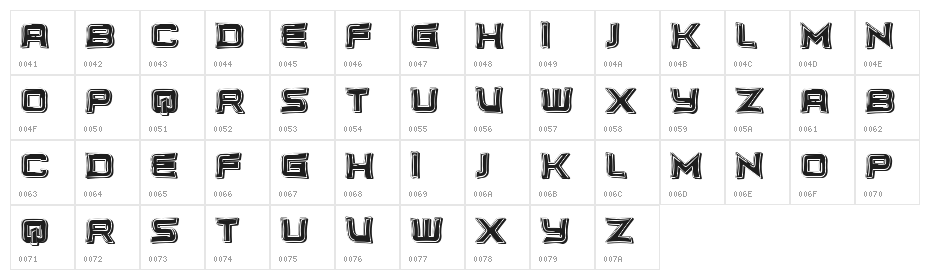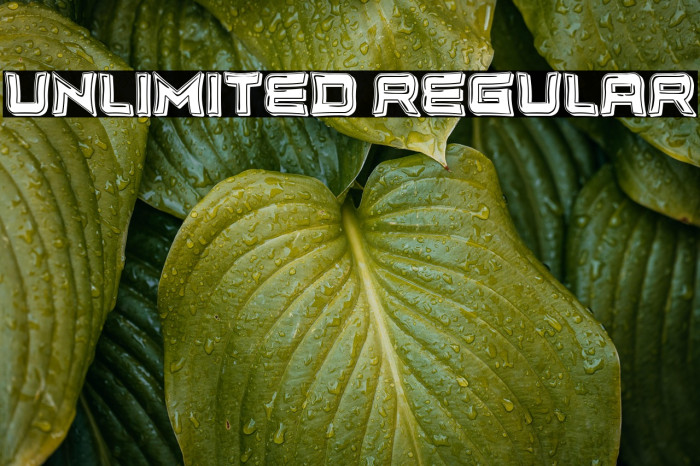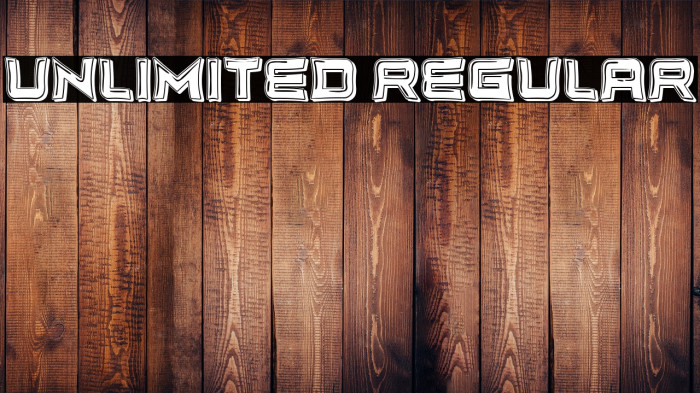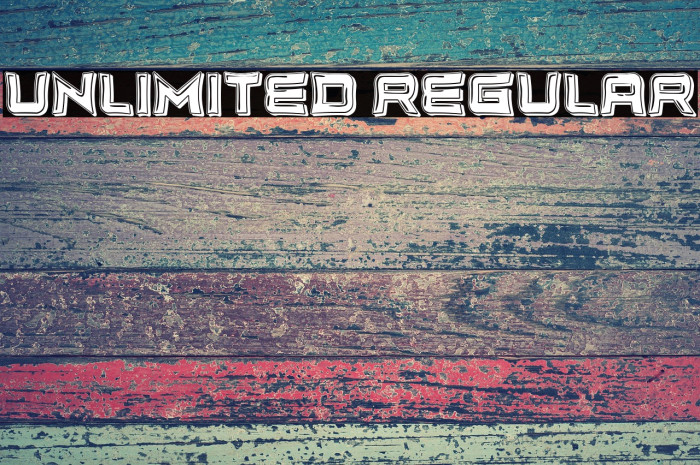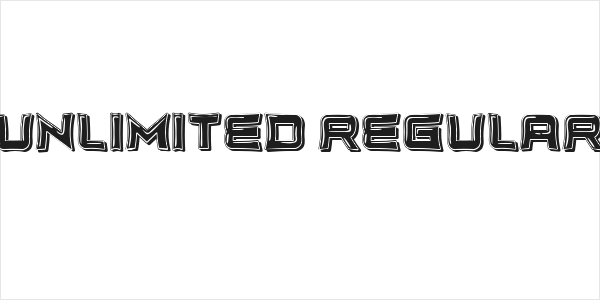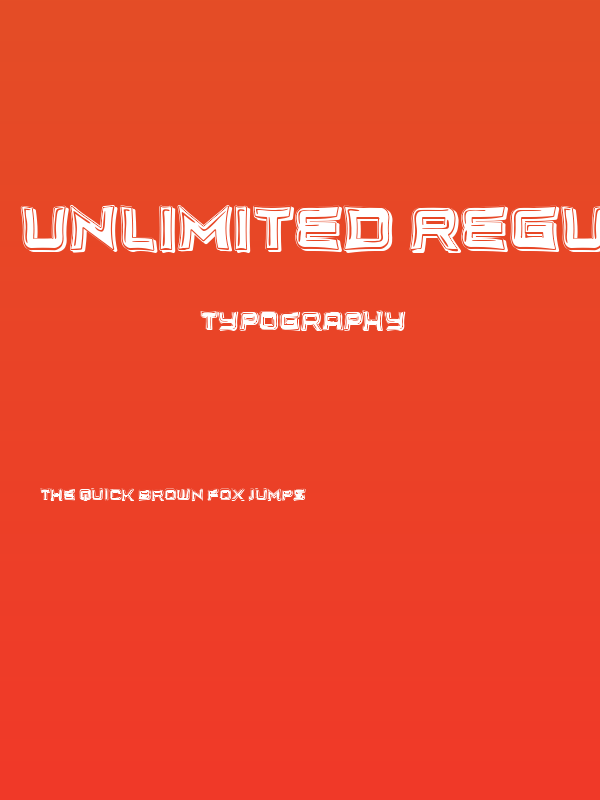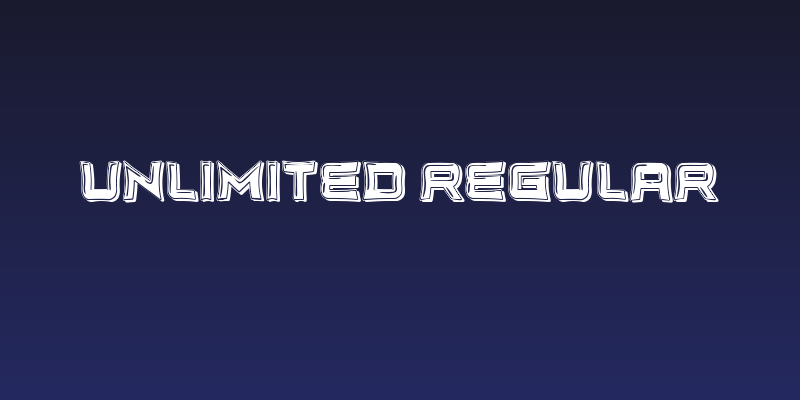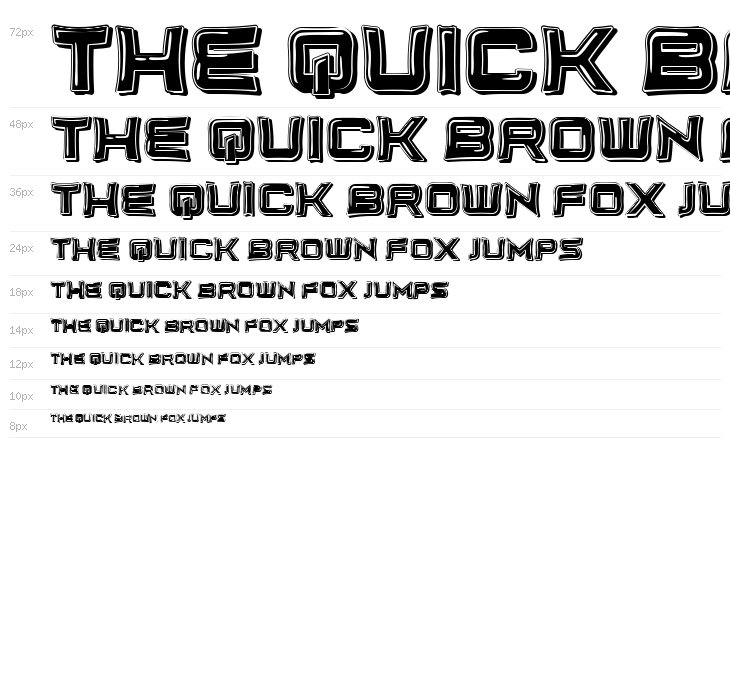
Unlimited Regular Font
Unlimited Regular Description
This font features a bold, dynamic style with a three-dimensional effect that gives it a futuristic and edgy appearance. The characters are outlined with a thick black stroke, creating a strong contrast against the inner white space. Each letter has a unique, angular design with sharp edges and a sense of movement, making it highly distinctive. The font's geometric structure is consistent throughout, providing a cohesive look across all characters. Its boldness and visual impact make it suitable for attention-grabbing designs.
| Overall Style | Futuristic, Dynamic |
| Proposed Projects | Ideal for sci-fi themed posters, video game titles, and branding that requires a modern, edgy look. |